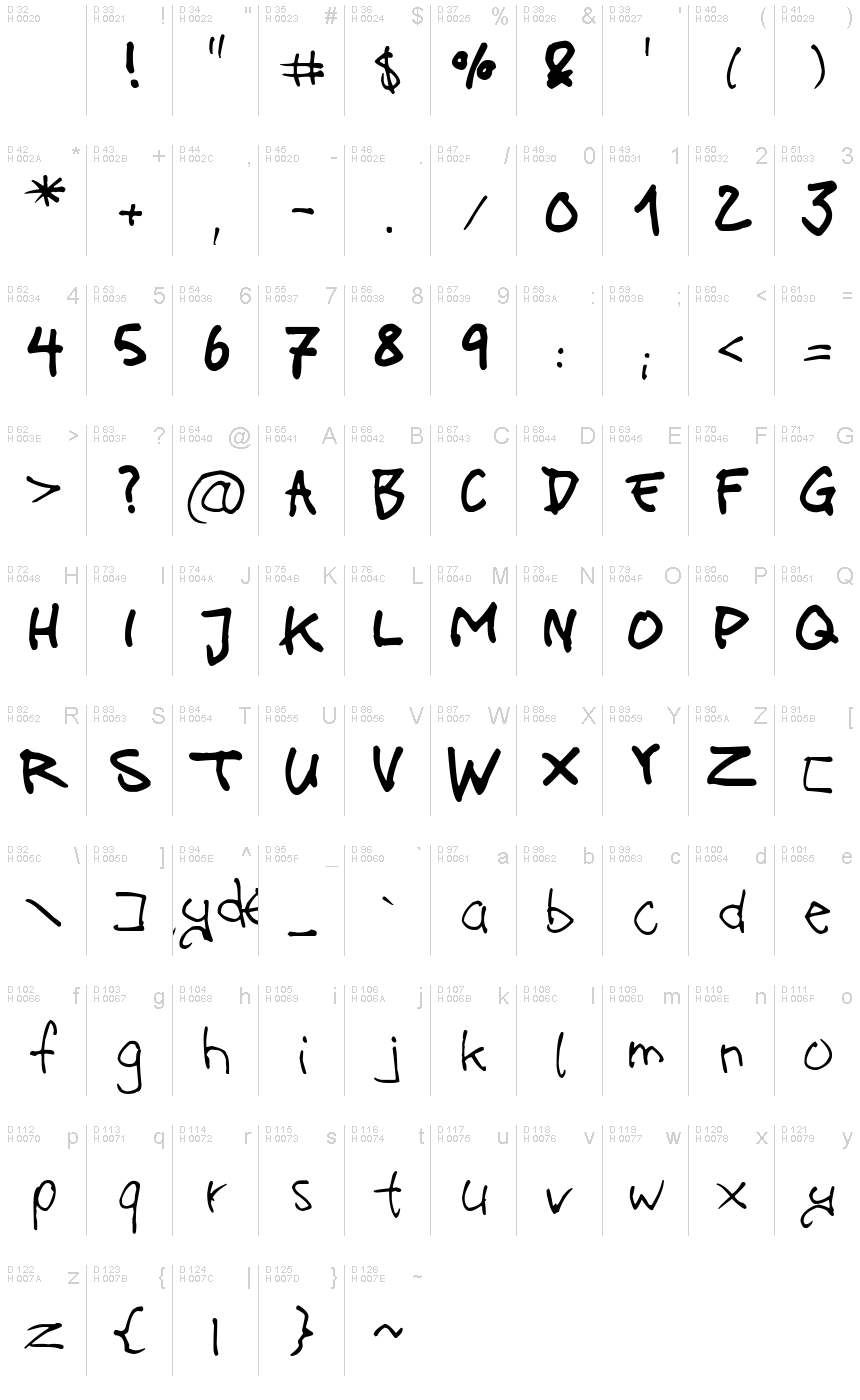
on acid
On Acid is a striking, handwritten font that exudes a bold, unconventional flair. Its dynamic and unrestrained strokes convey a sense of spontaneity, hinting at the unpredictable nature of the creative process. The irregular, almost chaotic penmanship lends the font a distinct character, making it an ideal choice for projects seeking to evoke a raw, experimental aesthetic.
From eye-catching headlines and impactful branding to edgy editorial layouts, "On Acid" offers a versatile solution for designers seeking to break free from the confines of traditional typography.